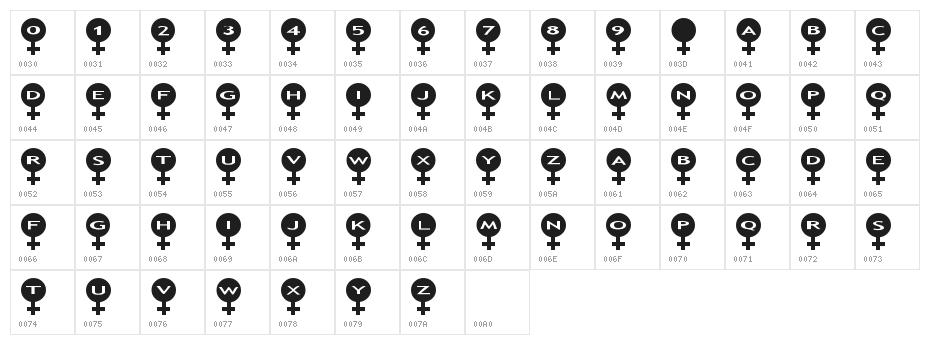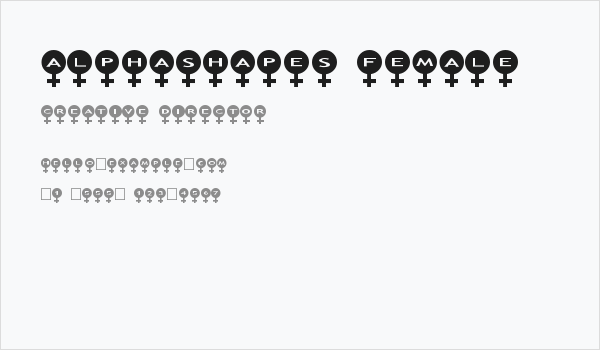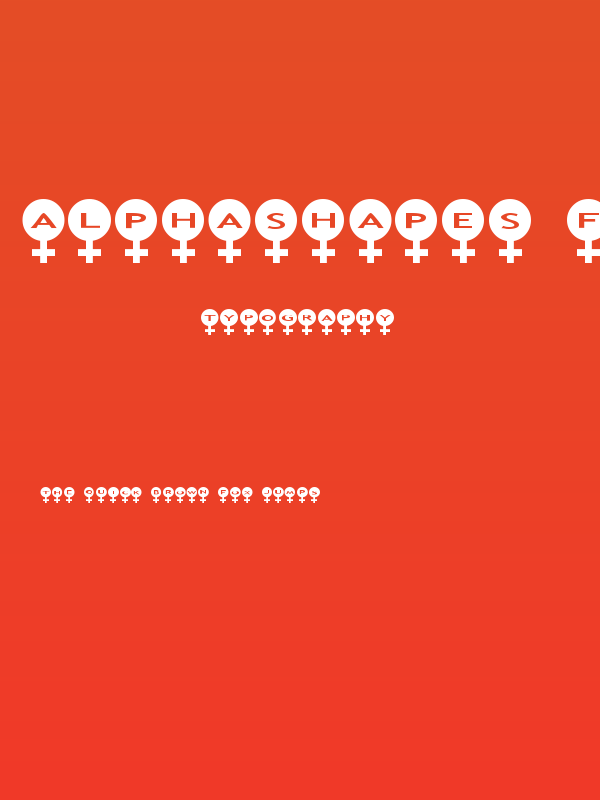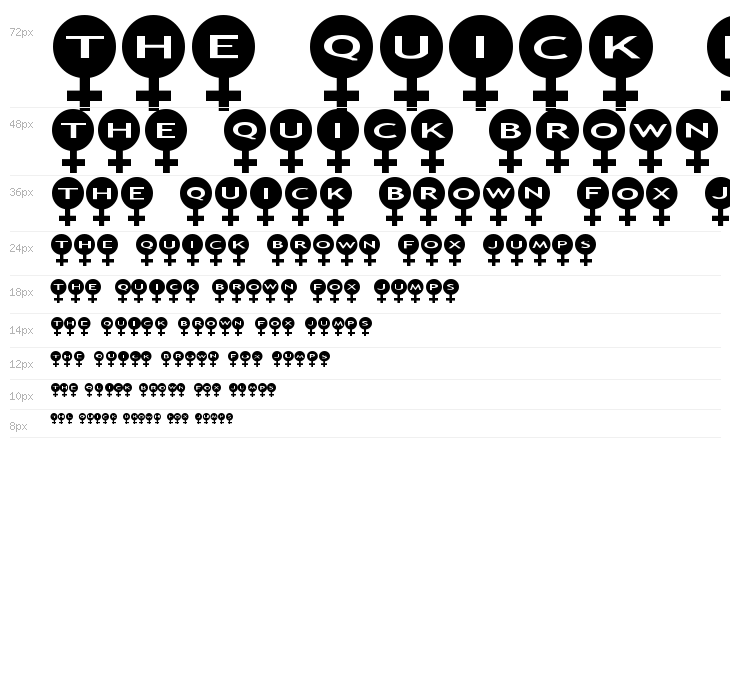
AlphaShapes female Font
AlphaShapes female Description
This font features a unique design where each character is enclosed within a female gender symbol. The letters and numbers are bold and capitalized, providing a strong visual impact. The circular part of the symbol serves as a backdrop, enhancing the visibility of each character. The design is consistent across all letters and numbers, creating a cohesive and striking appearance. This font is particularly suited for projects that aim to convey themes of feminism, gender equality, or empowerment. Its bold and decorative style makes it ideal for attention-grabbing headlines or logos.
Proposed ProjectsIdeal for feminist-themed projects, gender equality campaigns, or empowerment-focused branding.